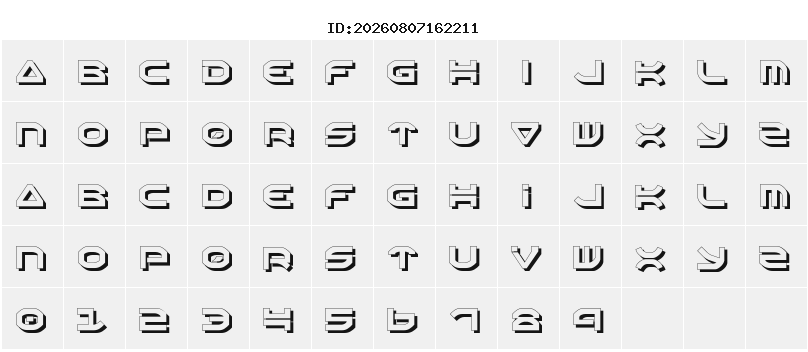
• Font Name: Oberon Shadow
• Font Style: Shadow
About Oberon Shadow.ttf
Oberon Shadow.ttf is a modern, elegant sans-serif font designed for ultimate readability and visual harmony. Perfect for branding, headlines, web design, and print materials.